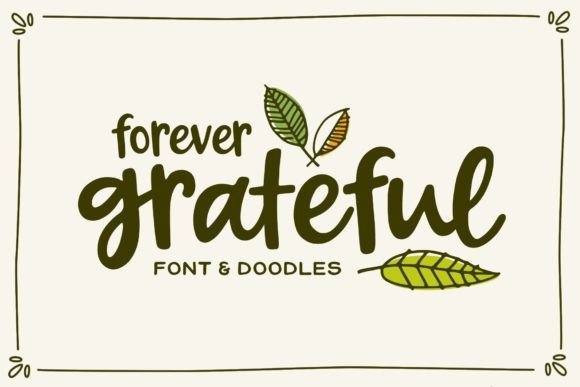
In a world of digital expression, where words dance across screens and emotions linger in every stroke, there's a font that captures the essence of gratitude and joy - Forever Grateful. This enchanting script, crafted by the visionary Denise Chandler, is a symphony of handwritten elegance, a whimsical masterpiece that breathes life into your creative endeavors.
Forever Grateful is not just a font; it's an experience, an invitation to let your imagination soar and your heartstrings strum with appreciation. Its casual, friendly demeanor embraces a myriad of projects and designs, from heartfelt letters and whimsical invitations to charming social media posts and captivating logos.
With each letter, Forever Grateful weaves a tale of gratitude, its playful curves and delicate strokes evoking a sense of warmth and cheer. It's the perfect font to express your heartfelt sentiments, to craft messages that resonate with authenticity and joy.
And to sweeten the deal, Forever Grateful comes with a delightful bonus - a set of autumn-themed doodles, accessible with upper and lowercase letters using Forever Grateful Doodles. These charming illustrations, like tiny works of art, add a touch of whimsy and seasonal flair to your creations.
So, embark on a journey of creative expression with Forever Grateful, the script font that captures the essence of gratitude and joy. Let your words dance with delight, your designs bloom with charm, and your messages resonate with heartfelt appreciation. Forever Grateful is more than a font; it's an ode to the beauty of life, a celebration of the moments that make our hearts sing.
Let Forever Grateful be your creative companion, igniting your imagination and leaving a trail of joy in its wake. Embrace the beauty of gratitude and let your creativity flourish with this enchanting script font.